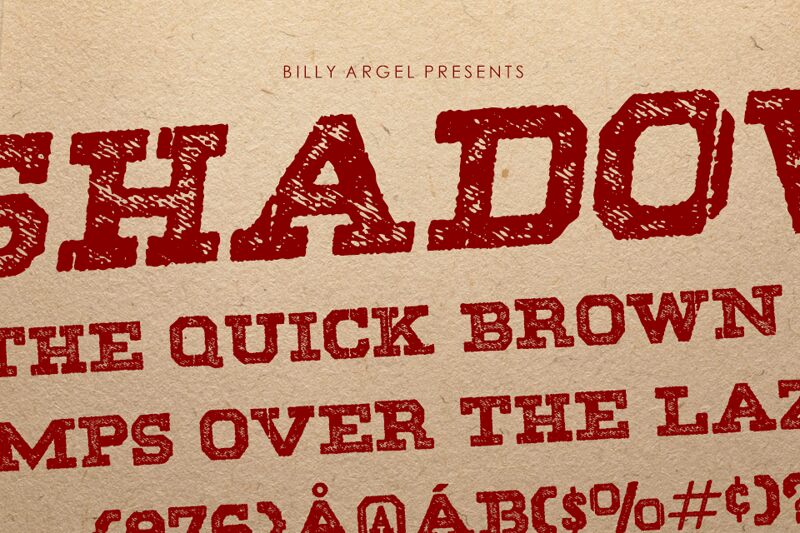
SHADOWS ITALIC PERSONAL USE Bold Italic
SHADOWS Bold Italic is an edgy display font that is perfect for projects that require a touch of grunge and attitude. Designed by Billy Argel Fonts, this eroded typeface boasts a bold weight and extra-expanded width, making it ideal for headlines, posters, logos, and more. Its unique style adds personality to any design, from album covers to fashion editorials. Let SHADOWS Bold Italic bring your creative vision to life with its powerful and expressive letterforms. Stand out from the crowd with this versatile font that's sure to make a lasting impression.